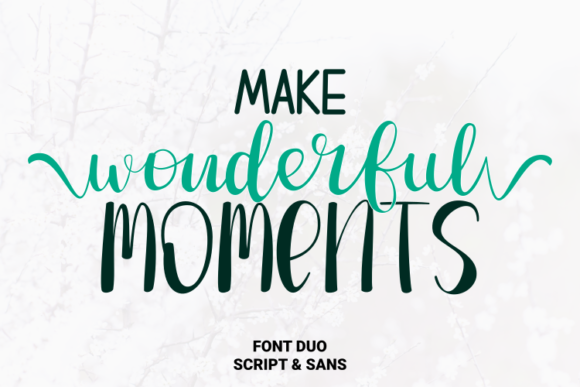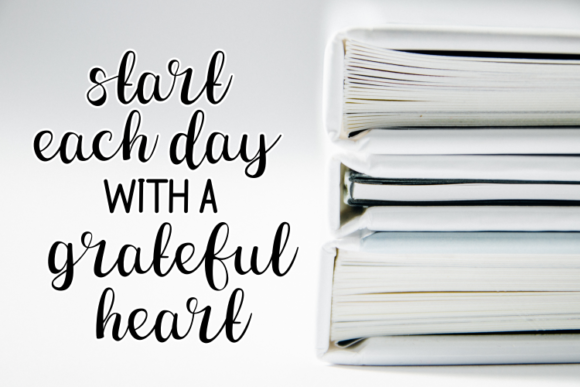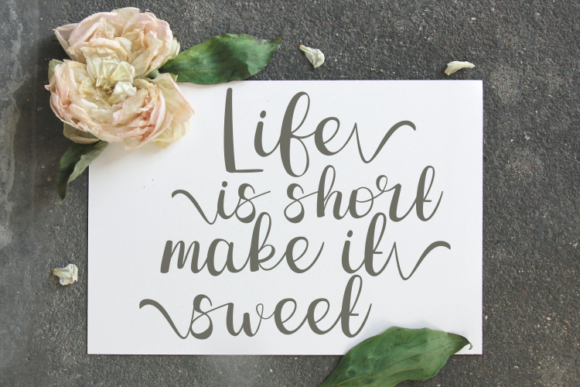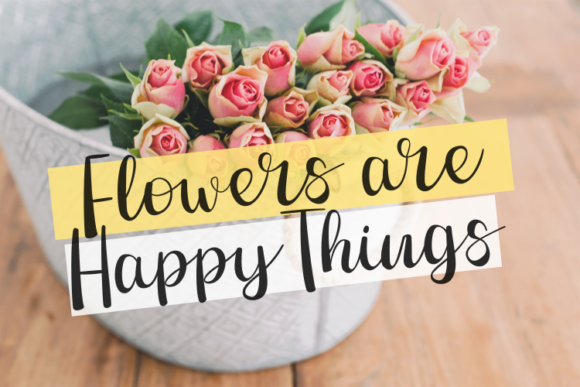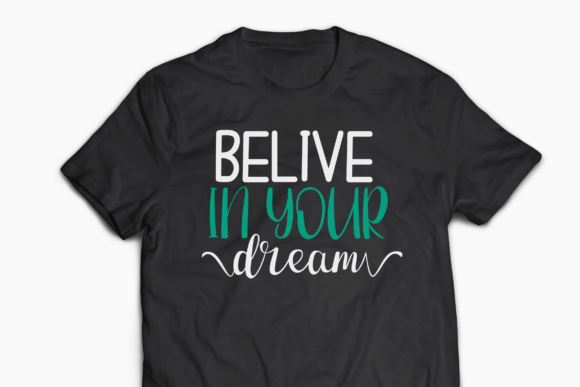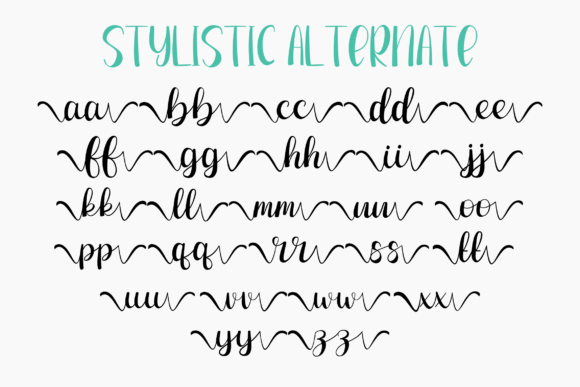
Make Wonderful Moments Font
Make Wonderful Moments is a spectacular duo font (sans serif and script). Incredibly versatile, this font fits a wide pool of designs, elevating them to the highest levels. Add this font to your favorite creative ideas and notice how it makes them come alive!